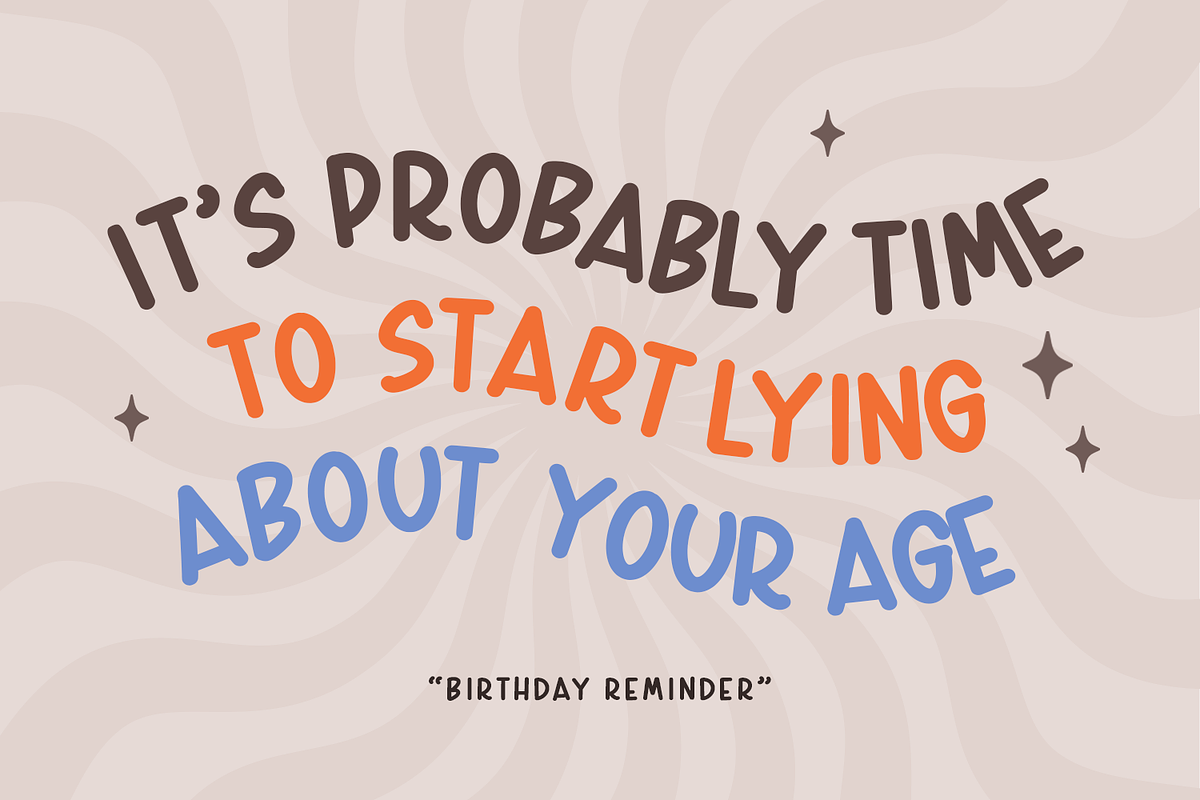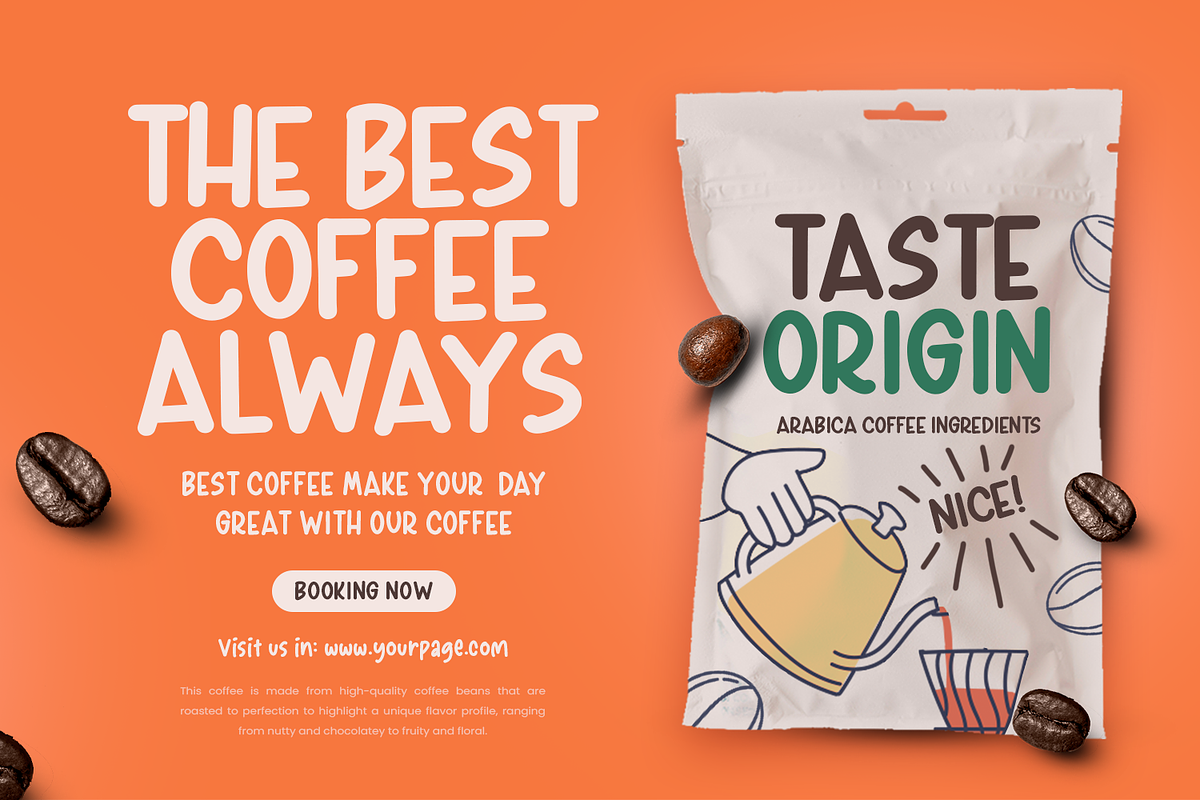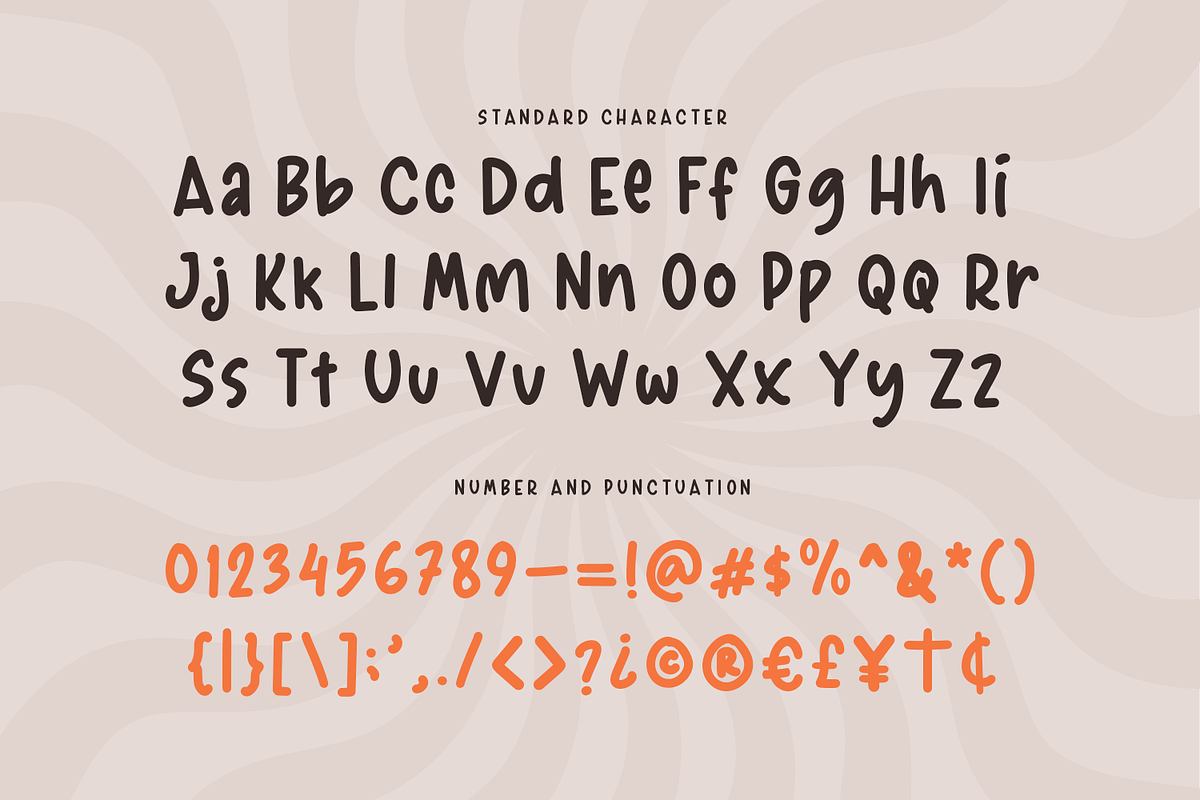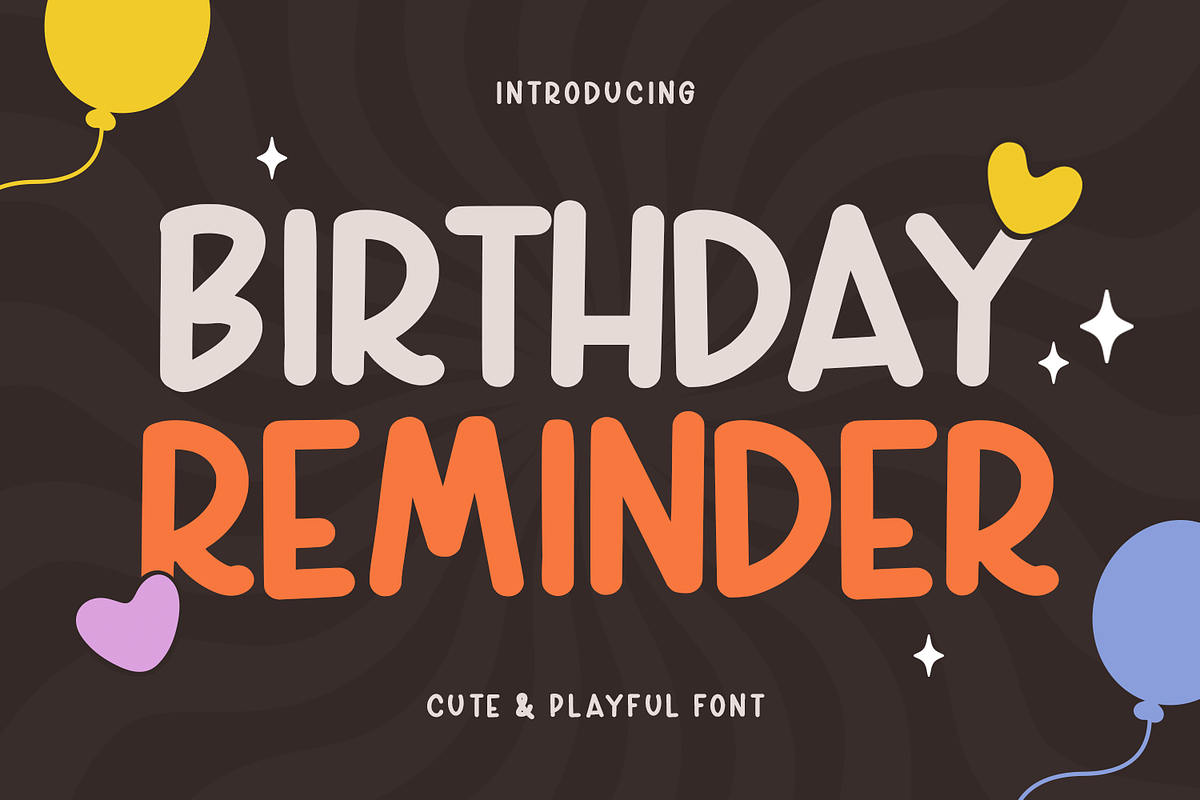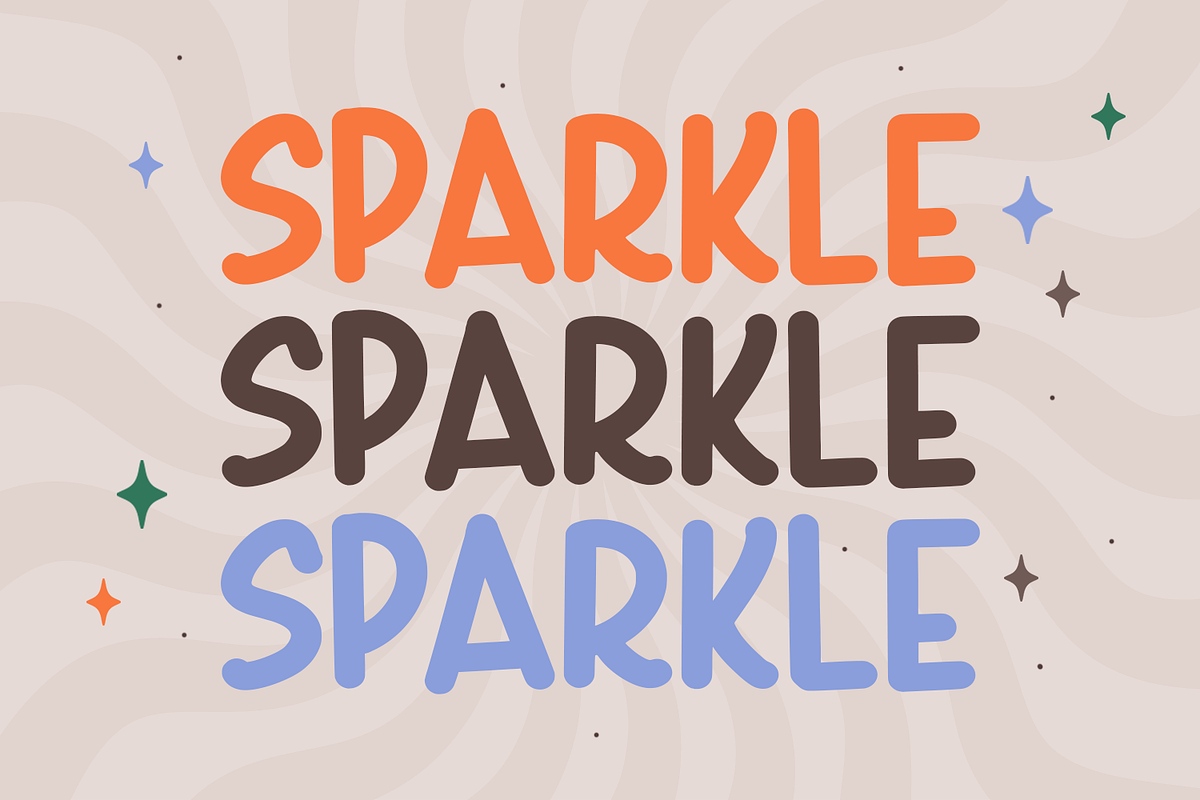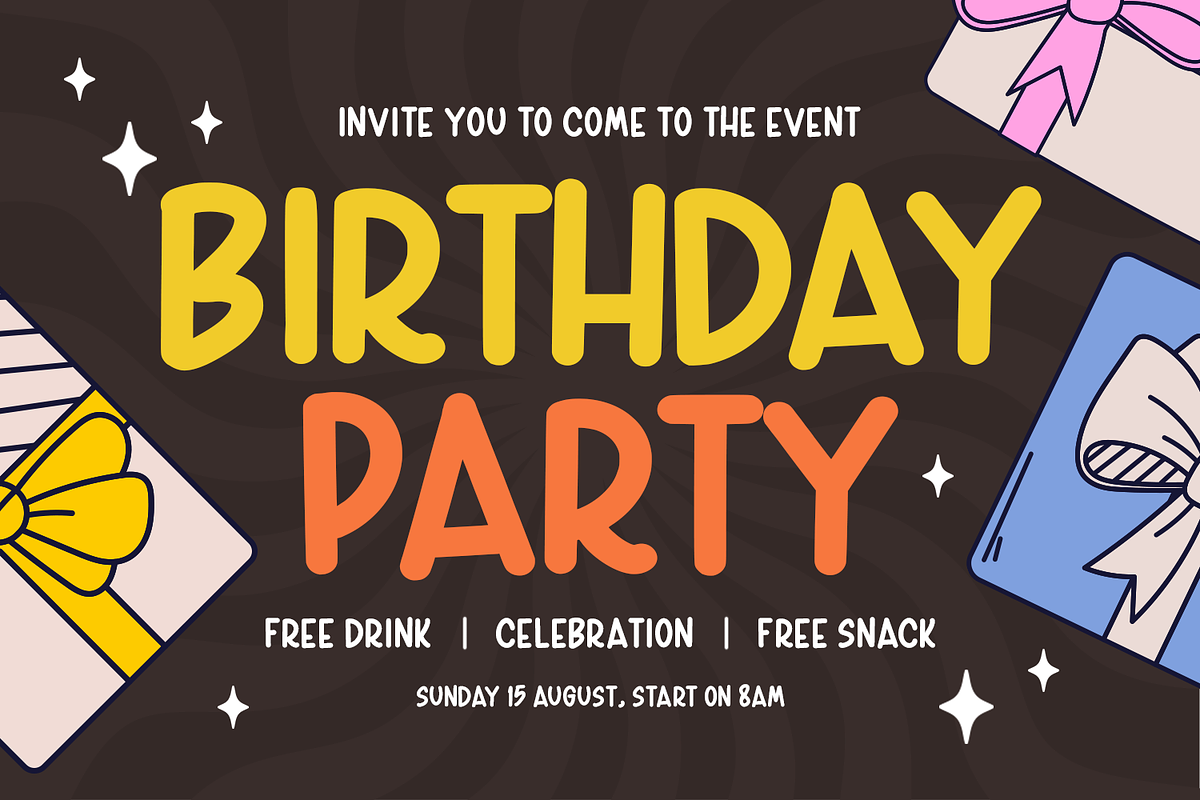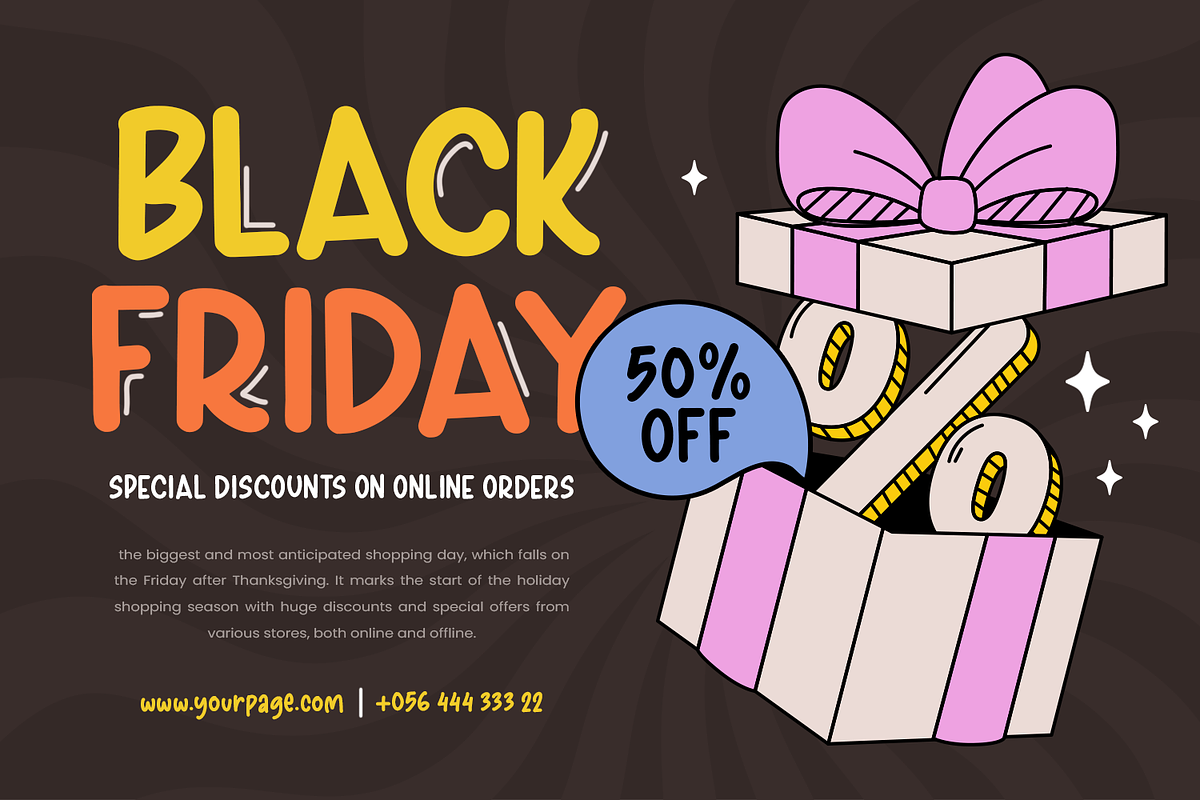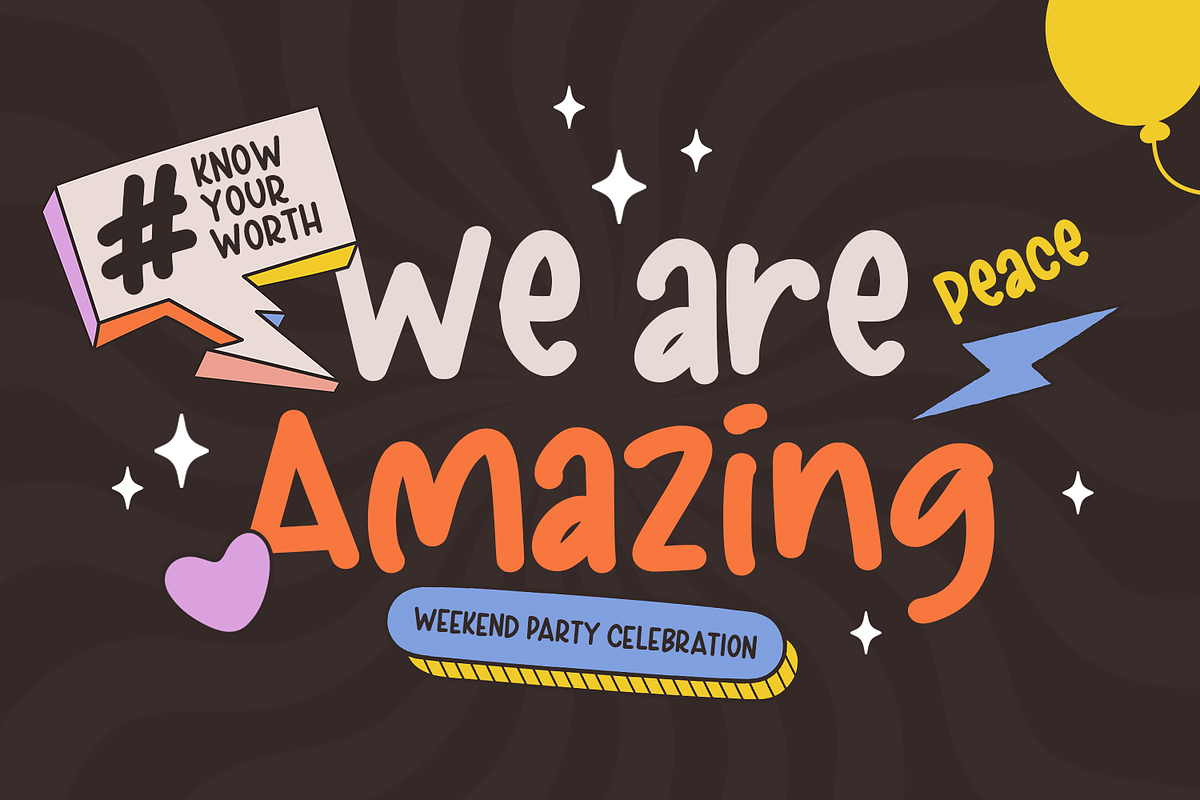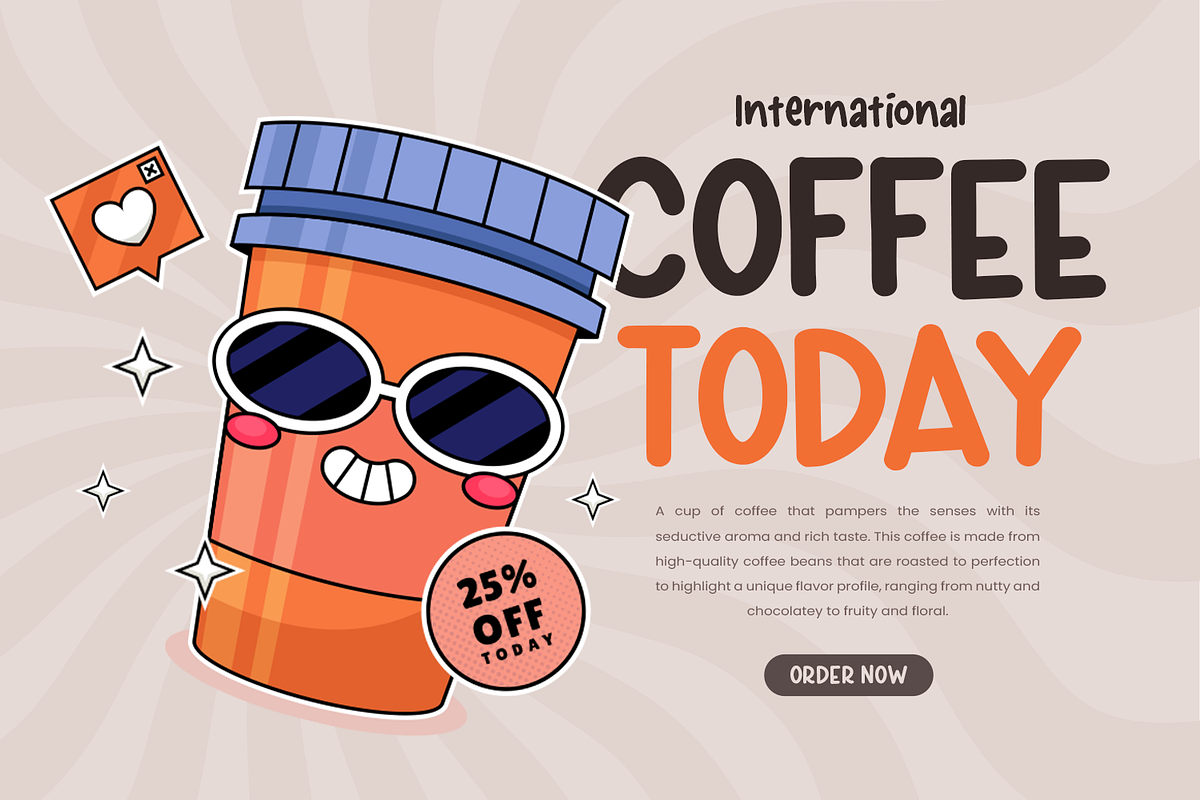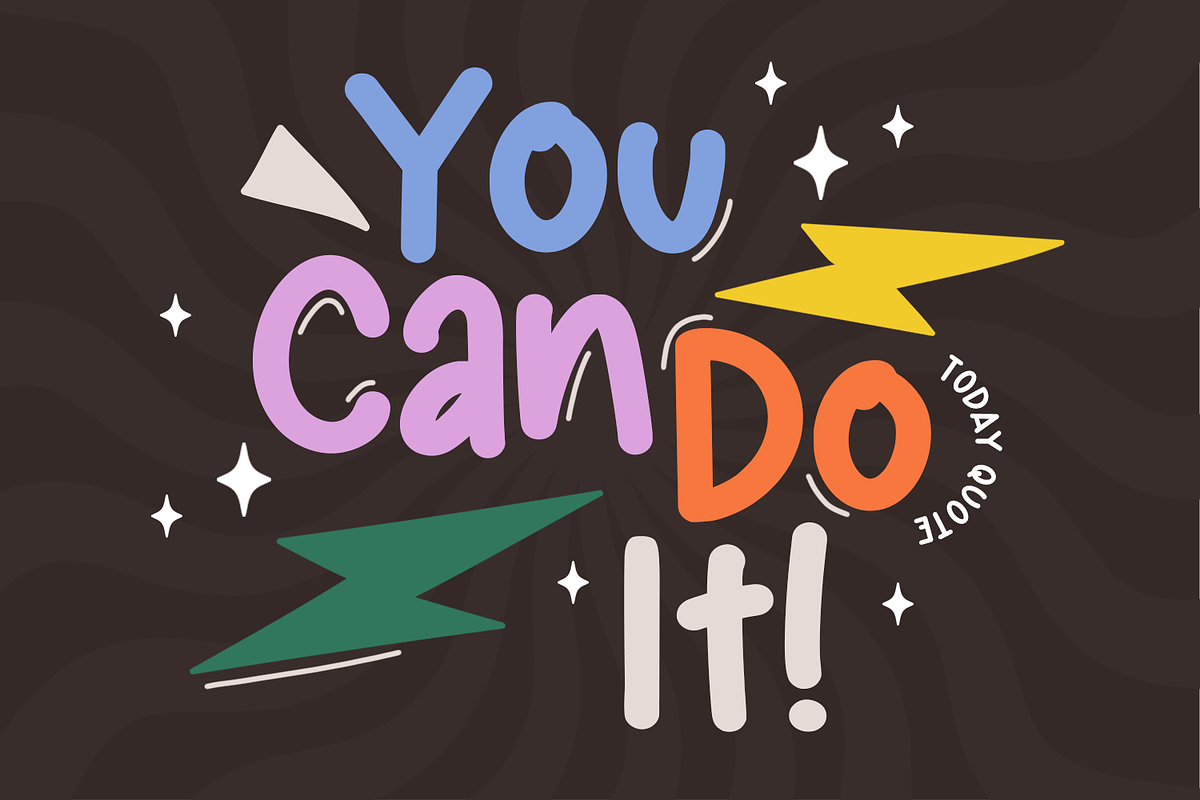
BIRTHDAY REMINDER
"Birthday Reminder" is a beautifully handwritten font that brings a touch of elegance and warmth to your creative projects. With its flowing lines and natural hand-drawn style, this font is perfect for themes such as notes, planners, drafts, and crafts. Its versatility makes it an ideal choice for adding charm to any design.
Whether you're working on Cricut designs, embroidery patterns, or lettering projects, "Birthday Reminder" effortlessly elevates your creations. It shines in seasonal themes like Thanksgiving and Christmas, adding a festive and polished aesthetic to cards, decorations, and gifts. Its seamless integration with SVG formats makes it a valuable asset for digital and physical crafting.
The font's clean, stylish strokes ensure it fits beautifully across a wide range of applications. From enhancing the details of your planner pages to creating eye-catching lettering for home decor, "Birthday Reminder" delivers a perfect balance of creativity and sophistication.